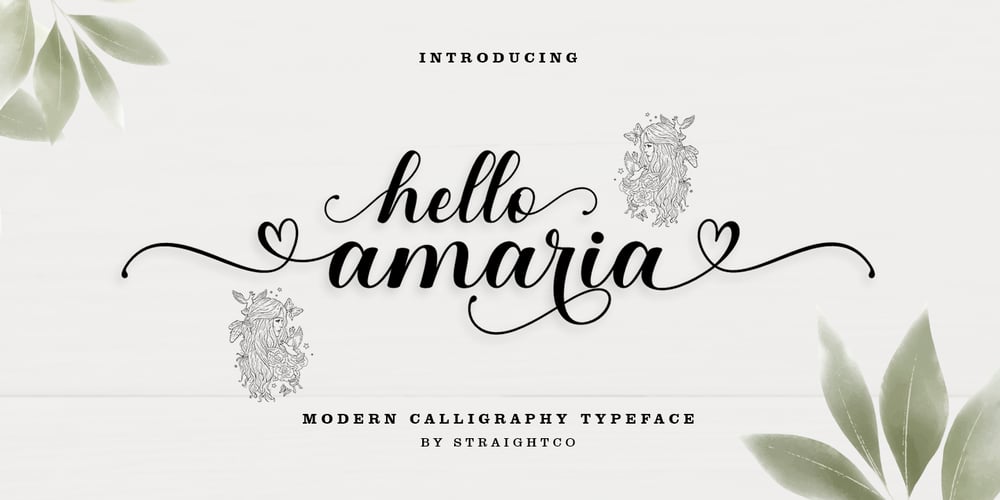
Hello Amaria
Hello Amaria font
Hello Amaria Font Family was designed by Imam Muhajir and published by Straight.Co. Hello Amaria contains 1 styles and family package options. Hello amaria is a modern calligraphy design, including Regular. This font is casual and pretty with a stroke. It can be used for various purposes. such as logos, product packaging, wedding invitations, branding, headlines, signage, labels, signatures, book covers, posters, quotes, and many more.Hello amaria includes OpenType language styling, binding, and international support for most Western languages. To enable the OpenType Stylistic alternative, you need a program that supports OpenType features such as Adobe Illustrator CS, Adobe Indesign & CorelDraw X6-X7, Microsoft Word 2010 or a later version. How to access all the alternate characters using Adobe Illustrator:https://www.youtube.com/watch?v=XzwjMkbB-wQHello amaria is encoded with Unicode PUA, which allows full access to all additional characters without having to design special software. Mac users can use Font Book, and Windows users can use Character Map to view and copy any of the extra characters to enter into your favorite text editor/application. How to access all alternate characters, using Windows Character Map with Photoshop:https://www.youtube.com/watch?v=Go9vacoYmBwIf you need help or have questions, let me know. I’m happy to help 🙂 Thanks & Happy Designing!